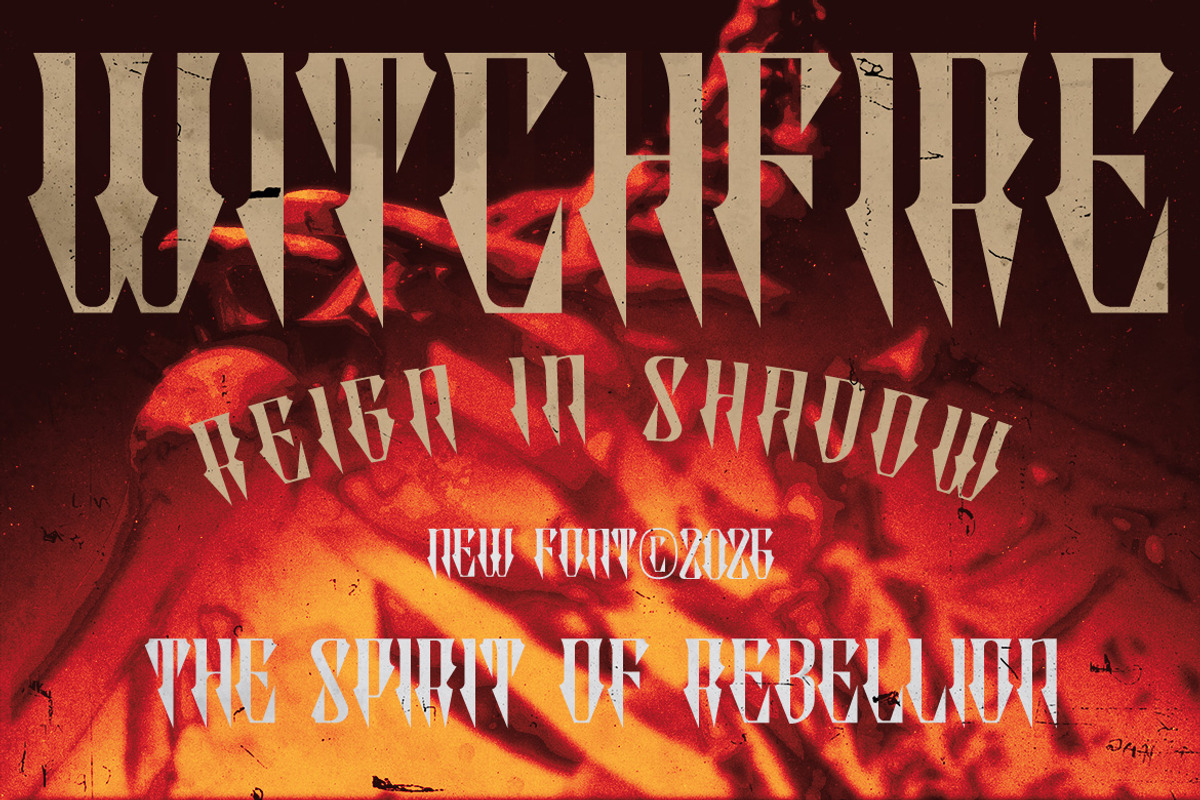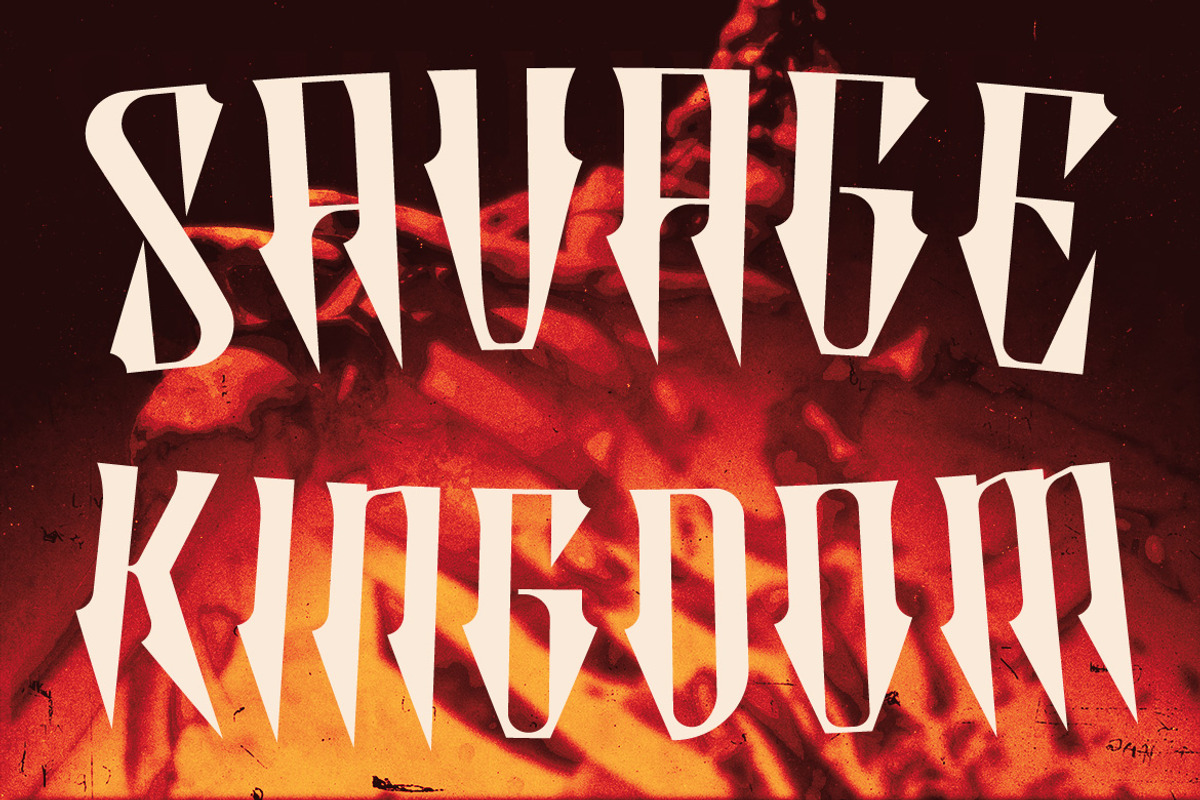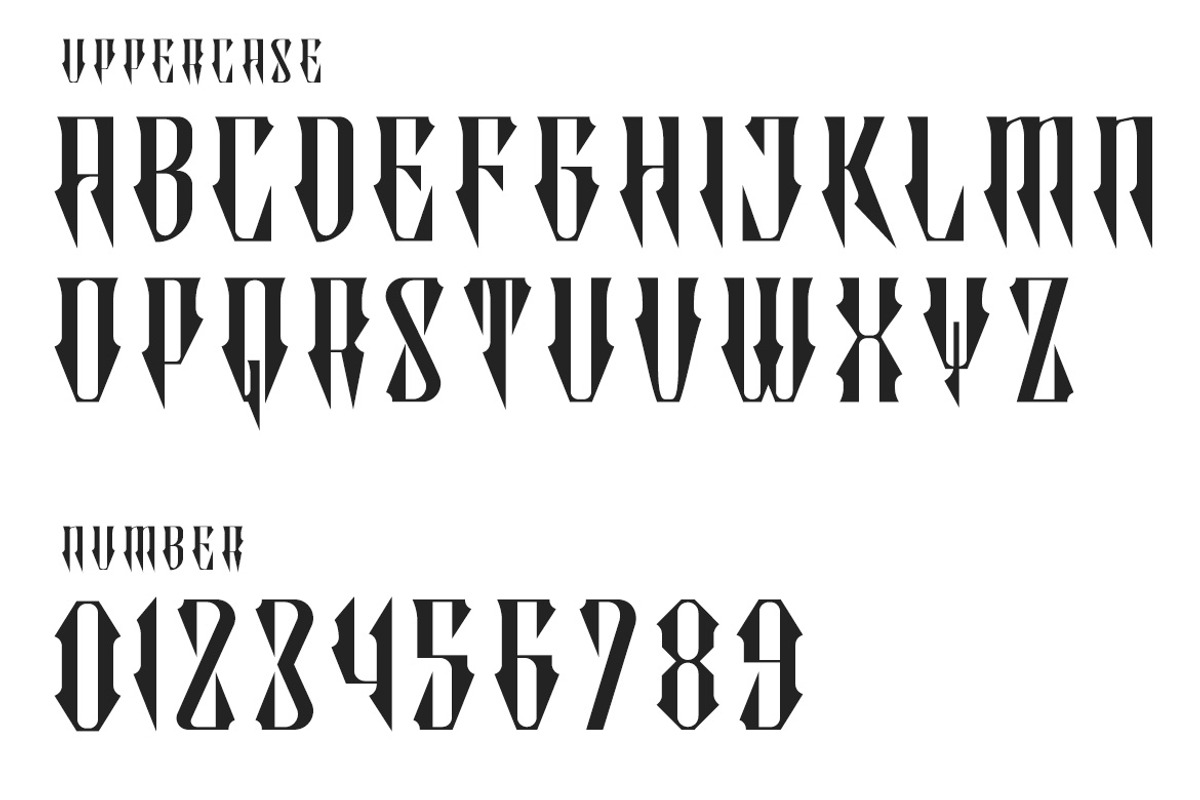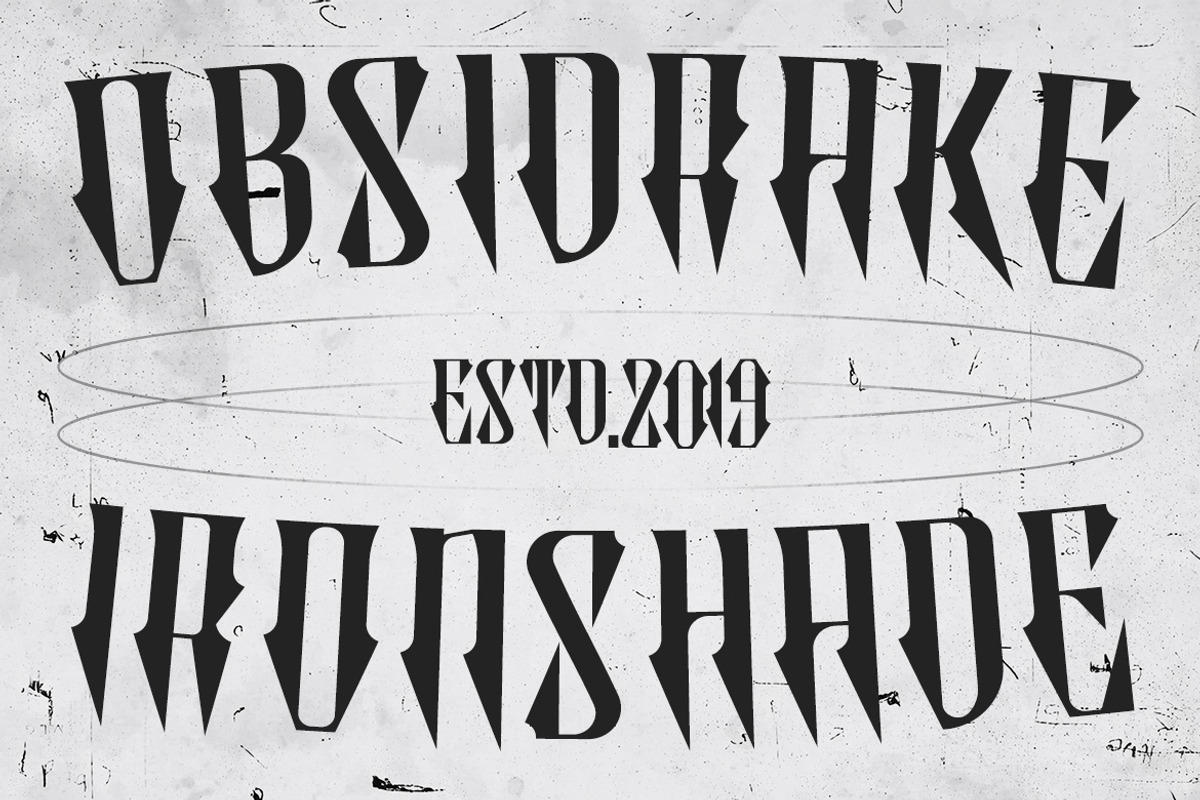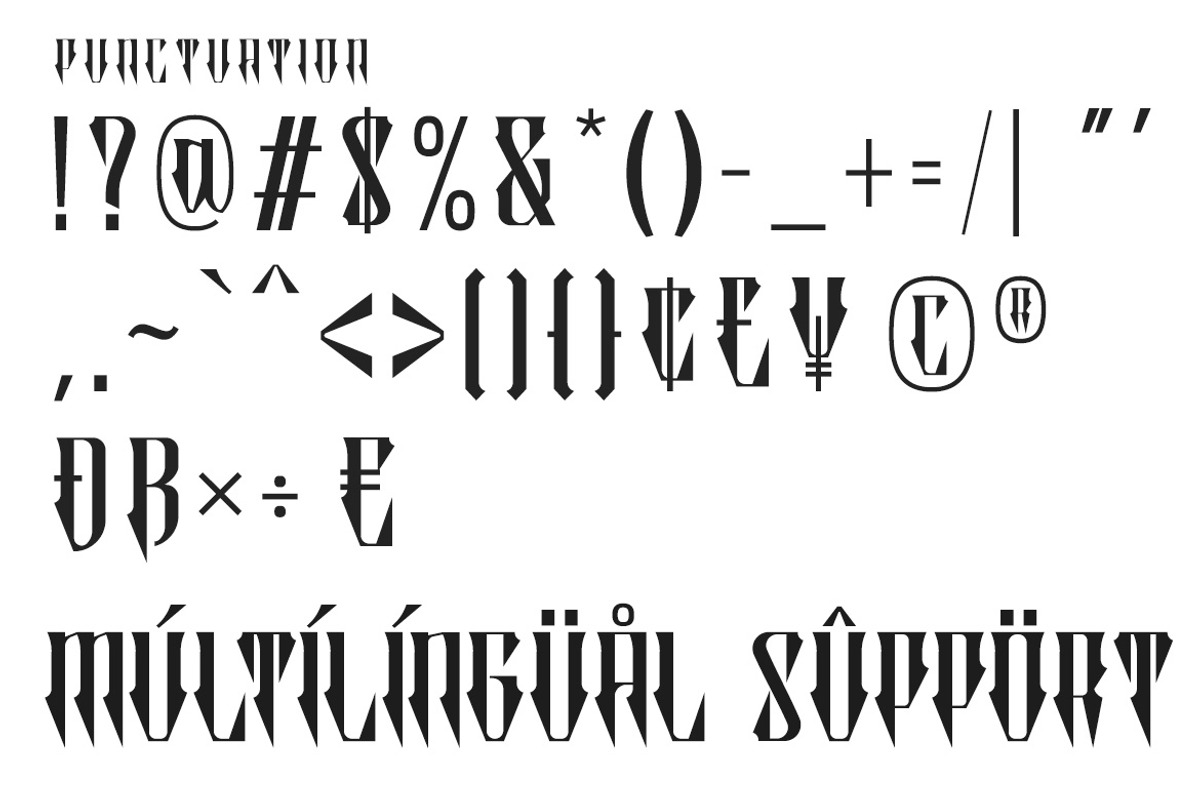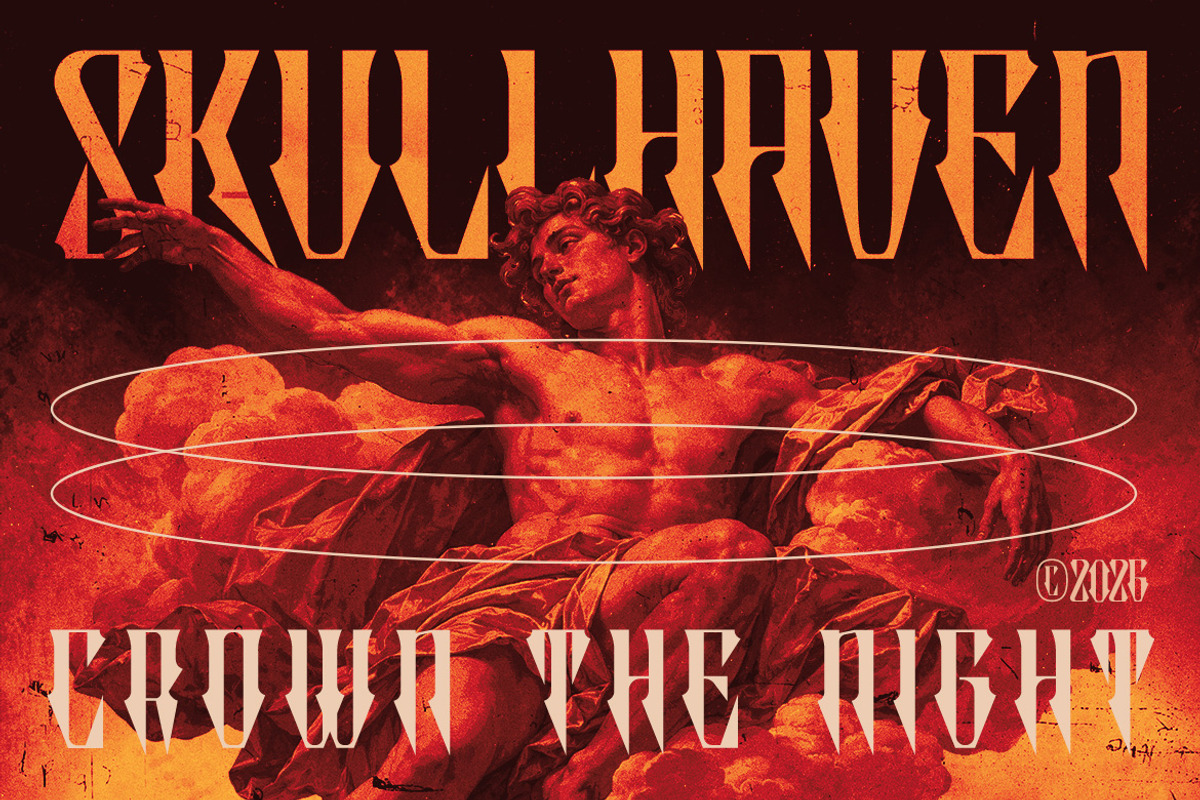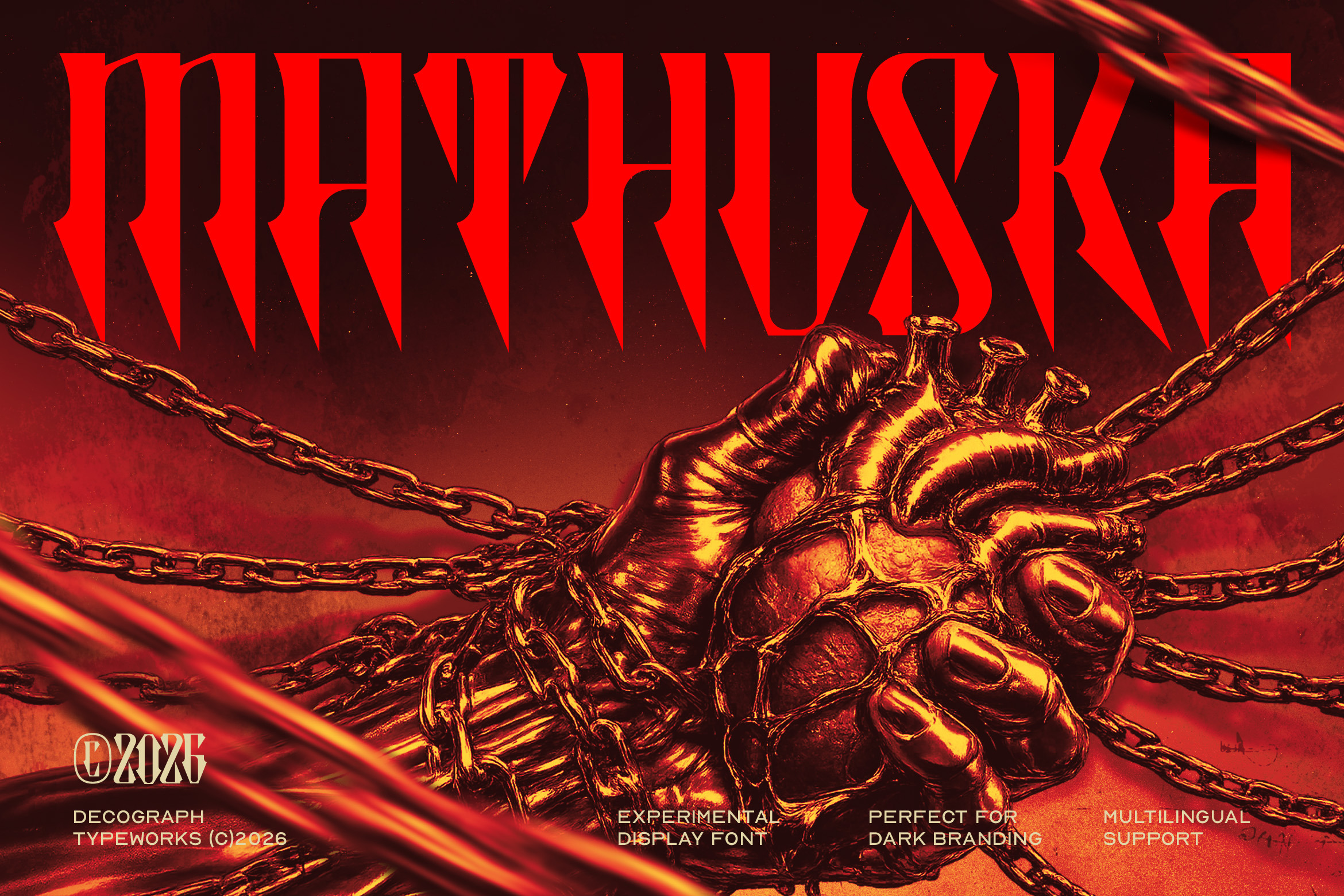
Mathuska – Experimental Gothic Font
MATHUSKA is an experimental gothic display typeface that combines narrow proportions with sharply constructed geometric forms, featuring dramatic pointed terminals, angular cuts, and unconventional letter structures that create a powerful visual presence. Its strong vertical rhythm and stylized silhouettes give the typeface a dark, futuristic, and rebellious personality. Designed for posters, album covers, fashion branding, merchandise, editorial headlines, and dark identity systems, MATHUSKA performs best at large display sizes—delivering an intense contemporary character that feels striking, aggressive, cinematic, and distinctly alternative.
Smooth Kerning